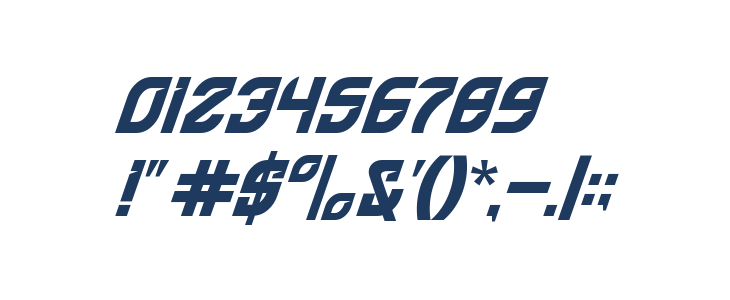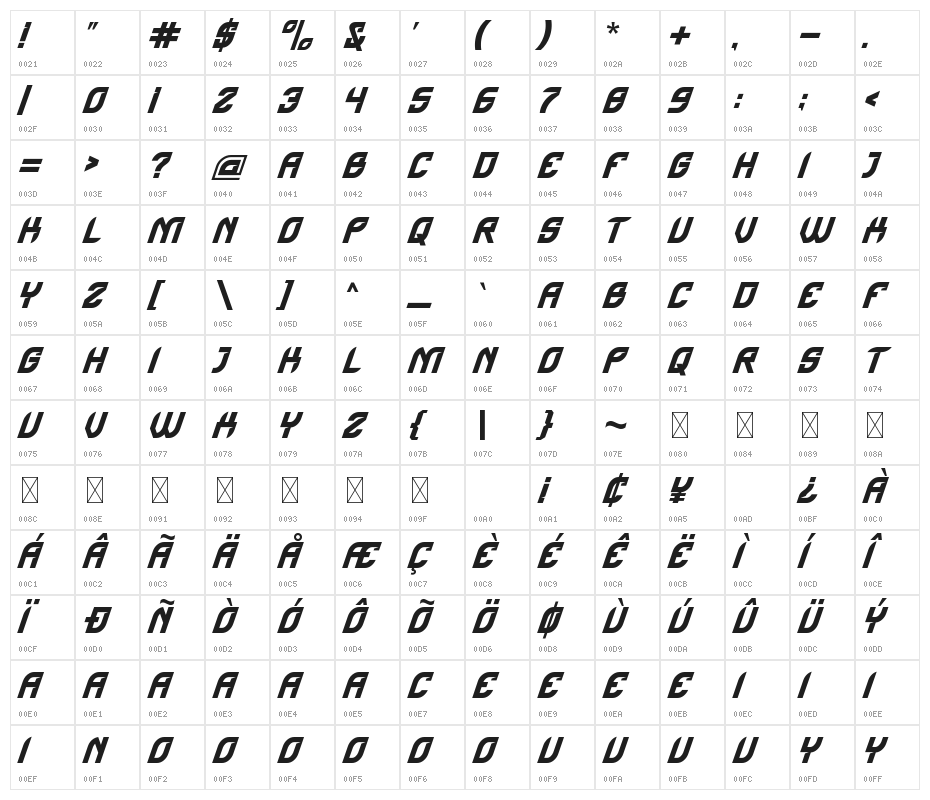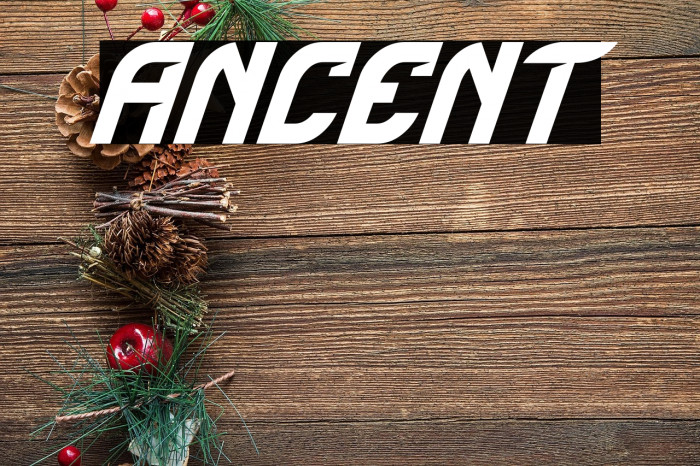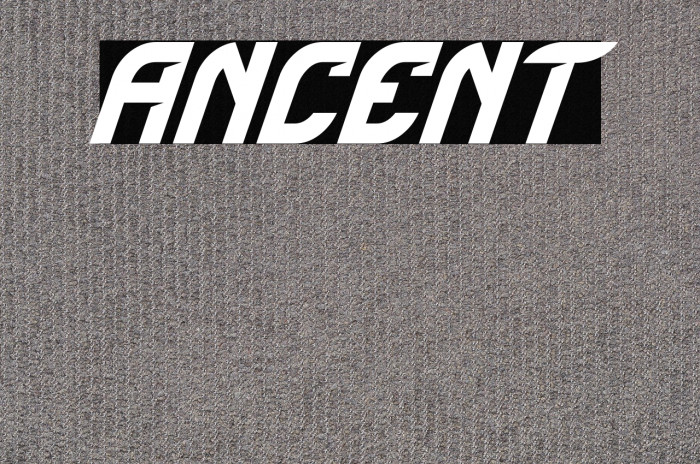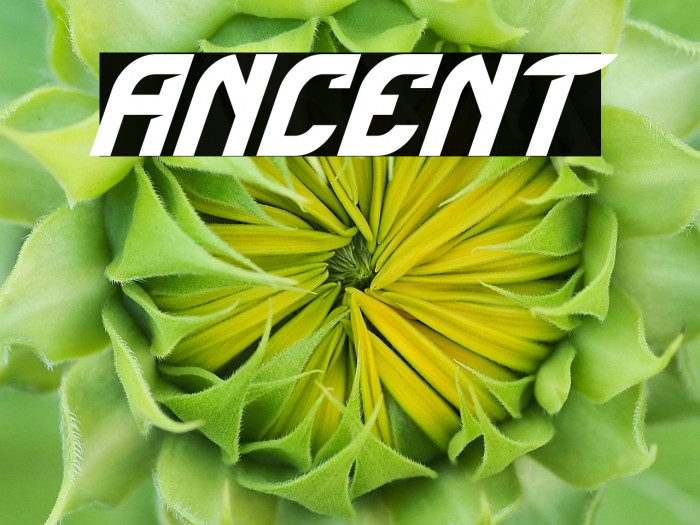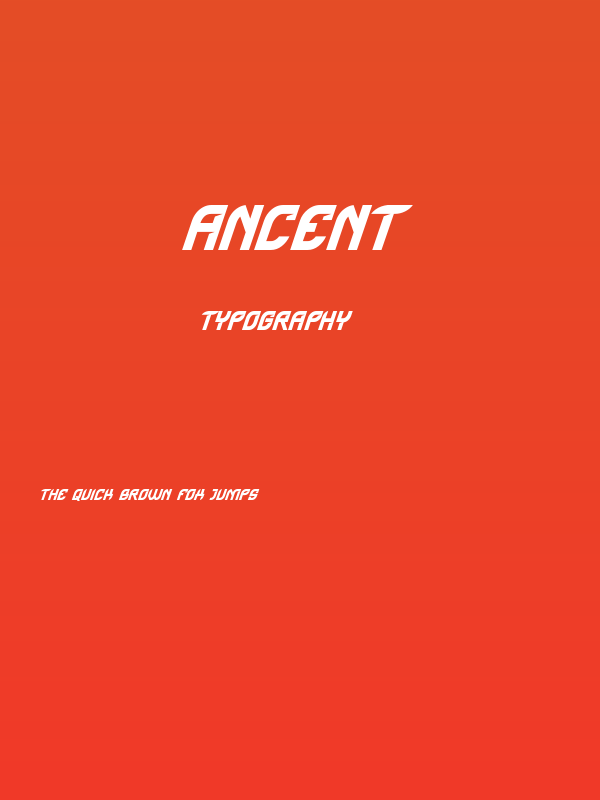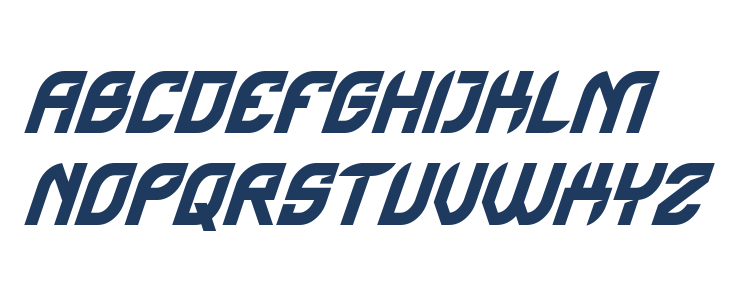
Ancent Font
Ancent Description
This font features a bold, italicized style with a strong, dynamic presence. The characters are slanted forward, giving a sense of motion and speed. The strokes are thick and consistent, providing a robust and impactful appearance. The overall design is modern and sleek, with sharp angles and clean lines that enhance its futuristic aesthetic. The uppercase and lowercase letters maintain a uniform style, while the numbers and special characters blend seamlessly with the alphabet. This font is ideal for projects that require a bold and assertive look.
| Use Case | Logos, Headlines, Advertising |
| Proposed Projects | Ideal for branding, sports team logos, automotive designs, and dynamic advertising. |